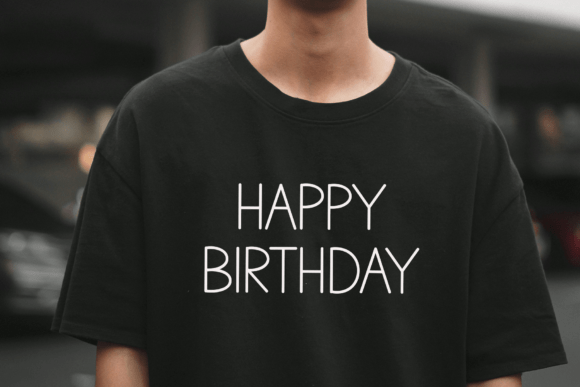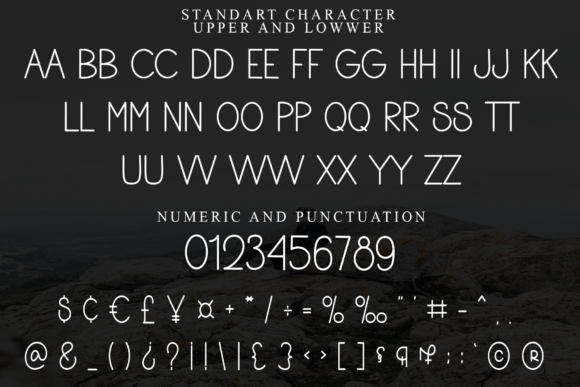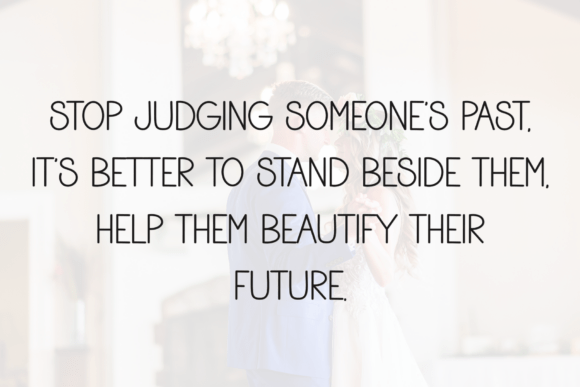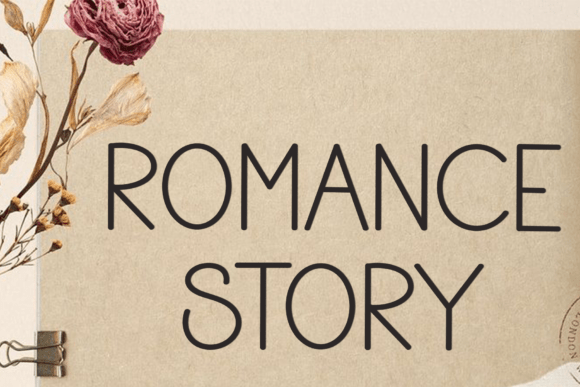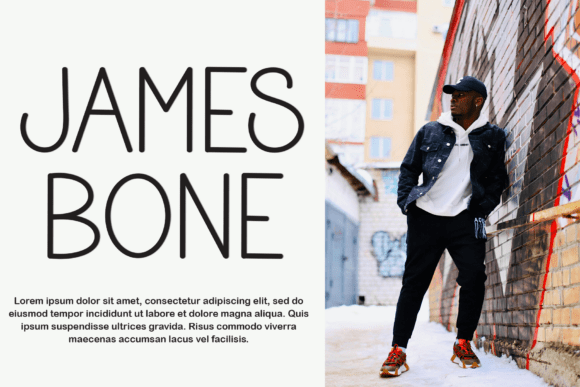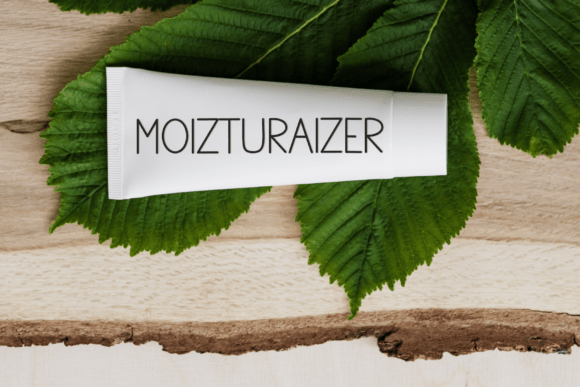
The Magic of the Season: Unveiling the Buenos Aires Font
As you sit down to craft the perfect holiday card or gift tag, you can’t help but feel a surge of creativity. The twinkling lights, the warmth of the fireplace, and the sound of festive tunes all come together to inspire your design. But what really makes your project shine is the perfect font – one that captures the essence of the season and transports your recipient to a world of wonder.
Enter the Buenos Aires Font, a festive and merry typeface that embodies the spirit of the holiday season. With its decorative elements and whimsical flair, this font adds a touch of enchantment to your designs, making it perfect for holiday-themed projects. Whether you’re a seasoned designer or a holiday enthusiast, the Buenos Aires Font is a valuable addition to your toolkit, offering a range of glyphs and ligatures at your fingertips.
With its PUA encoding, accessing the font’s amazing features is a breeze, allowing you to let your typography shine with the magic of the Buenos Aires Font.
Buenos Aires Font Key Features
- Font Family: Buenos Aires Font, a sans-serif font designed for body text and titles.
- Unique Characteristics: Buenos Aires Font is known for its clean and modern design, with a subtle flair at the terminals, making it highly legible in various contexts.
Buenos Aires Font Review
Overall, I was pleasantly surprised by the Buenos Aires Font. Here are some things that stood out to me:
- ✨ Elegant and sophisticated feel: The font exudes a sense of luxury and refinement, making it perfect for high-end branding and design projects.
- ✨ Excellent legibility: The font is highly readable, even at smaller sizes, which is crucial for body text and other areas where readability is key.
- ✨ Unique flair: The Buenos Aires Font has a distinctive character that sets it apart from more generic fonts, adding a touch of personality to designs.
- ⚠️ Limited font weights: The font only comes in a few weights, which may limit its versatility for designs that require a range of font weights.
- ⚠️ Not ideal for digital use: While the font looks great on paper or screen, it may not be the best choice for digital applications where fonts need to be highly legible at small sizes.
- ⚠️ Not suitable for all languages: The font may not be optimized for languages with non-Latin scripts, which could limit its use in certain design projects.
Overall, the Buenos Aires Font is a solid choice for designers looking for a high-end, elegant font. While it has some limitations, its unique character and excellent legibility make it a great addition to any design toolbox.
The Buenos Aires Font is ideal for:
- Travel brochures and tourism materials
- Formal events and announcements
Alternatives to Buenos Aires Font
Playfair Display is a luxurious, elegant script font ideal for formal designs, headings, and titles. It’s perfect for creating a sophisticated and refined atmosphere in magazines, books, and high-end branding. In comparison to Buenos Aires Font, Playfair Display has a more classical and vintage feel, with intricate details and flourishes.